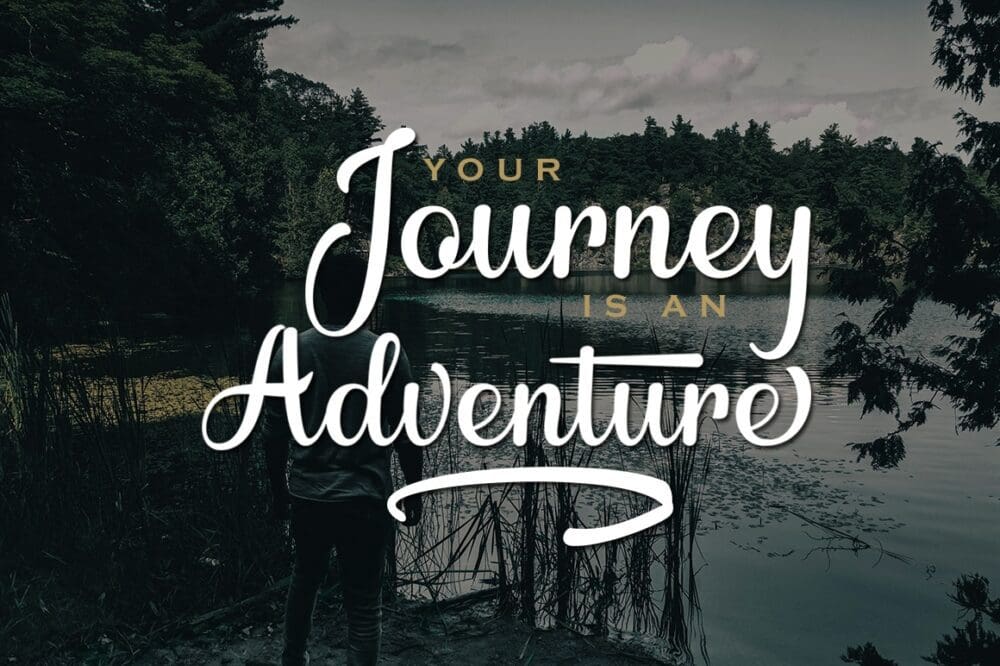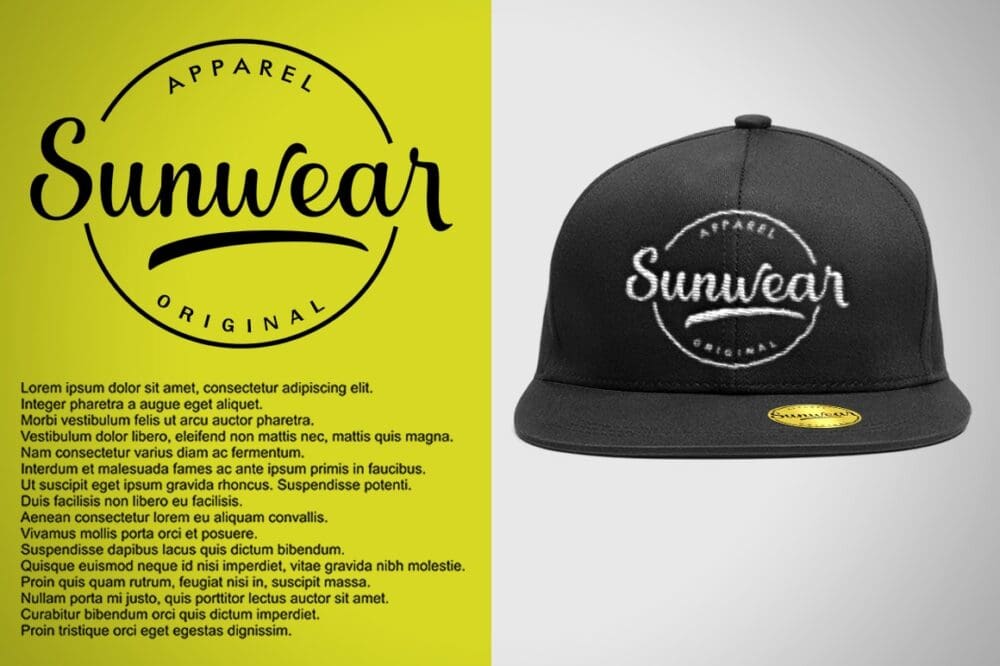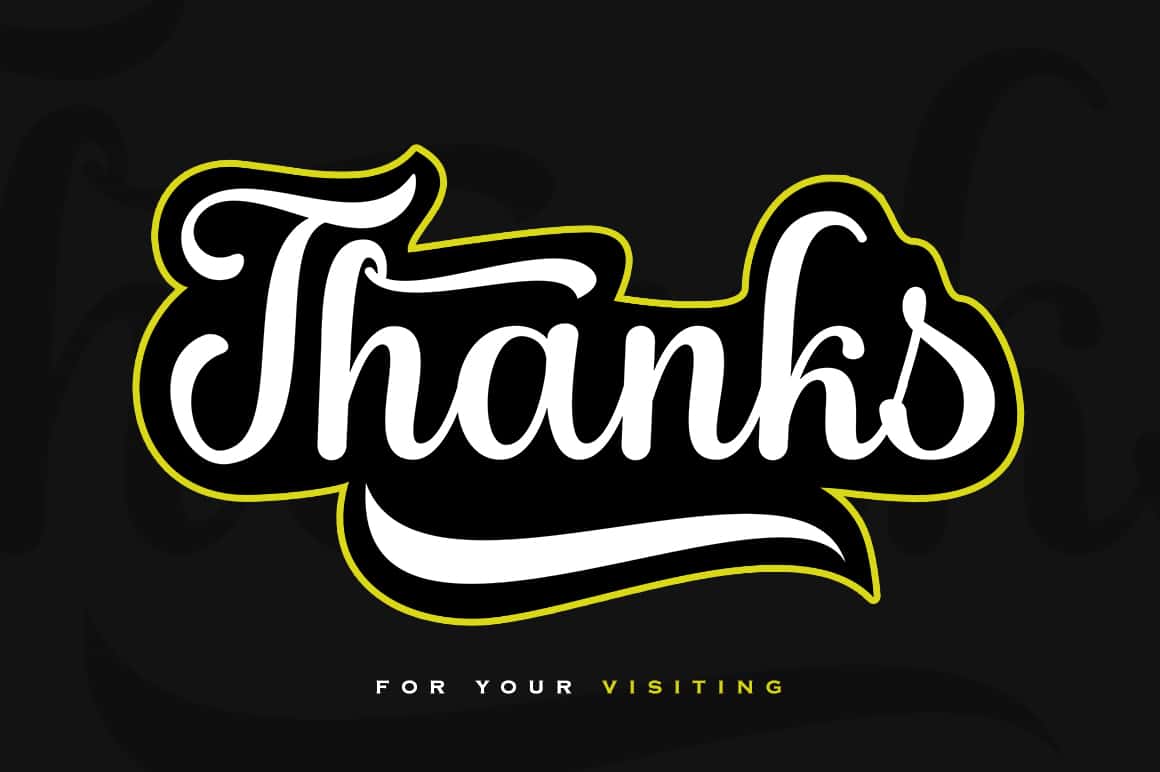
Brilliance Script Font
Brilliance Script Font is bold with smooth curves that are great for Branding, Logo Design, Lettering, Logotype, Clothing, Poster, magazine, packaging, posters, shopping bags, t-shirts, book covers, photography, special events, and other design projects.